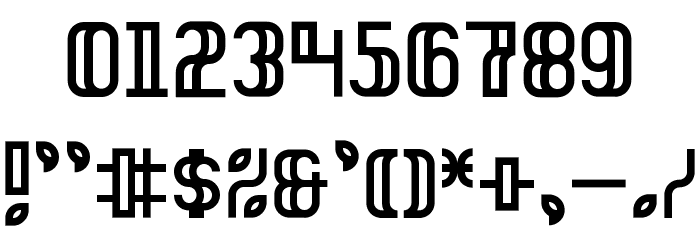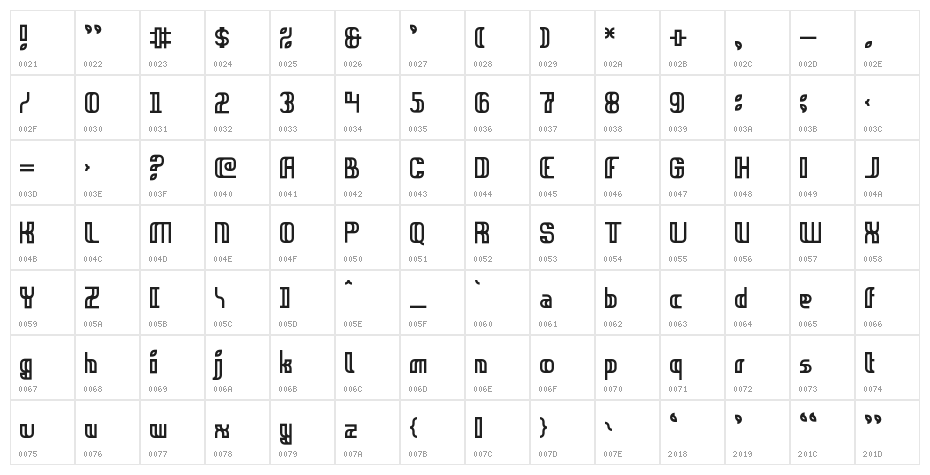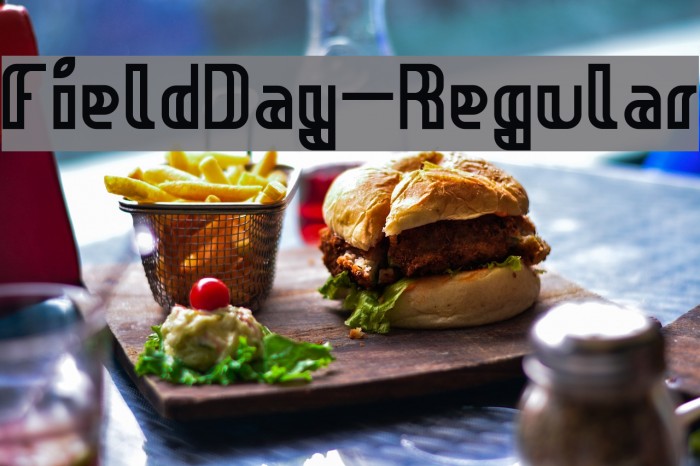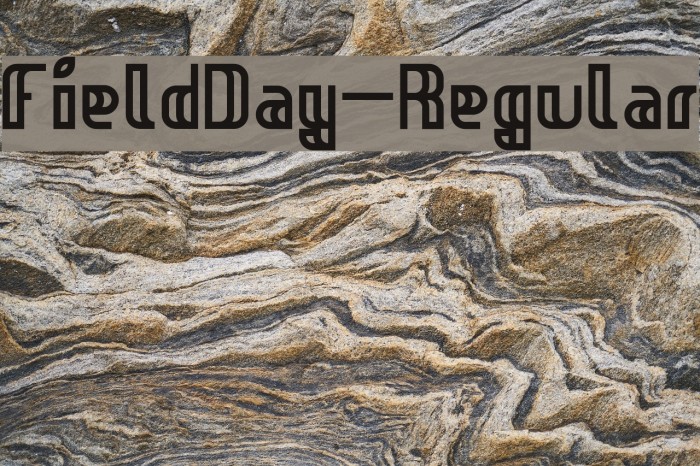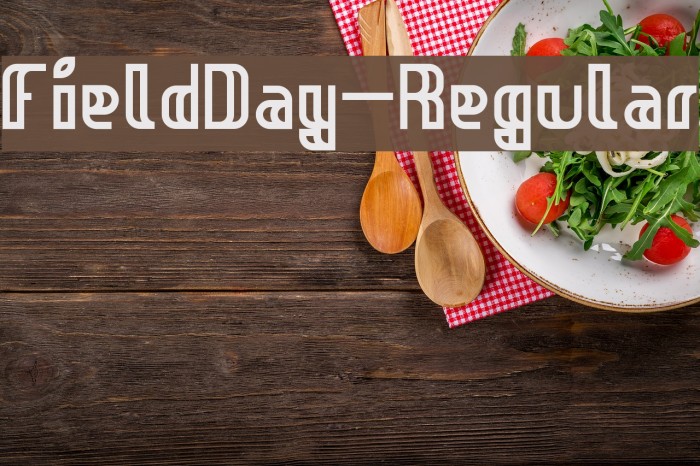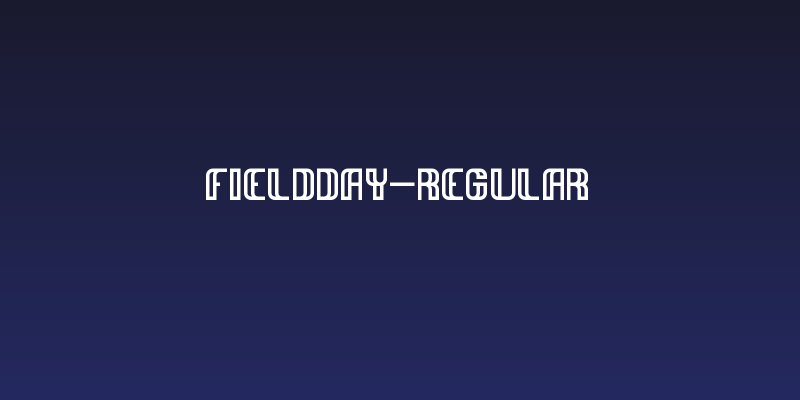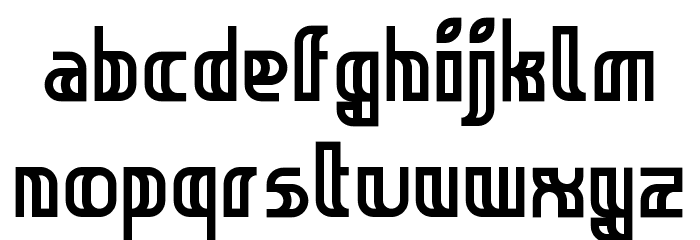
FieldDay-Regular Font
FieldDay-Regular Description
This font features a unique and modern design with a geometric and structured appearance. The characters are bold and have a distinct block-like shape, giving them a strong visual presence. The uppercase and lowercase letters maintain a consistent style, with rounded edges and a uniform thickness throughout. The numerals and special characters follow the same design principles, ensuring a cohesive look across all elements. The font's style is both contemporary and versatile, making it suitable for a variety of design applications.
| Proposed Projects | Ideal for branding, posters, headlines, and digital media projects that require a strong visual impact. |